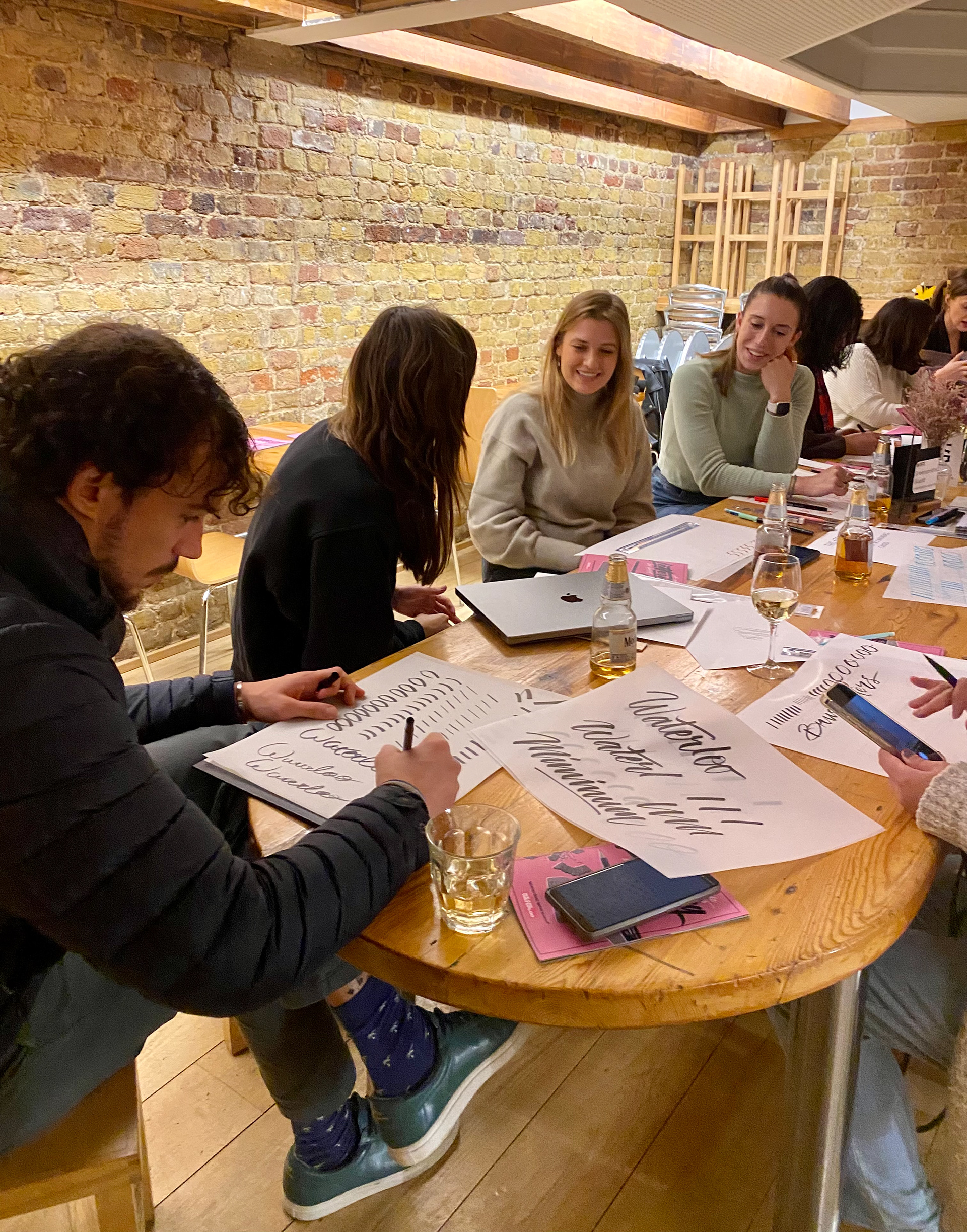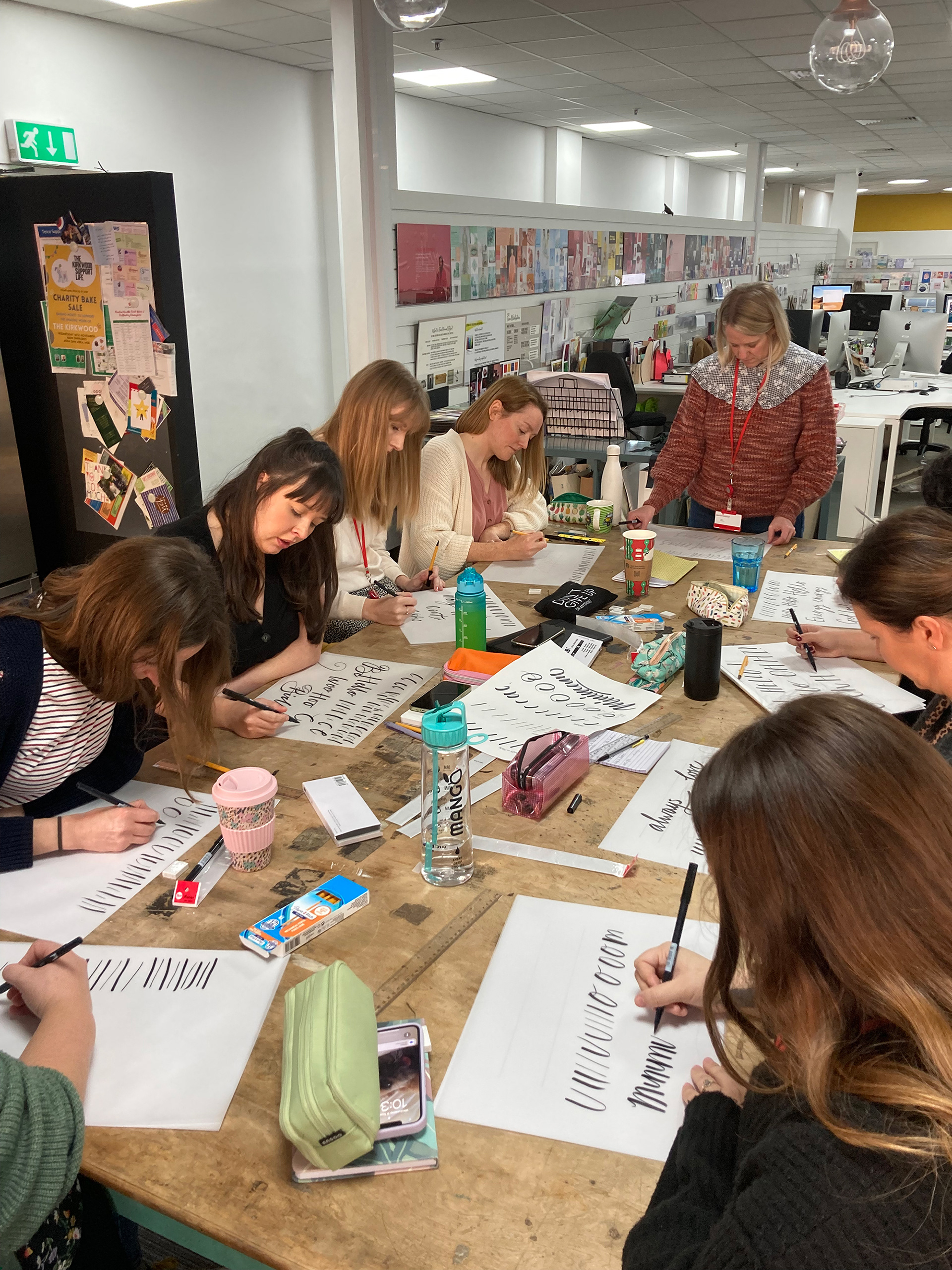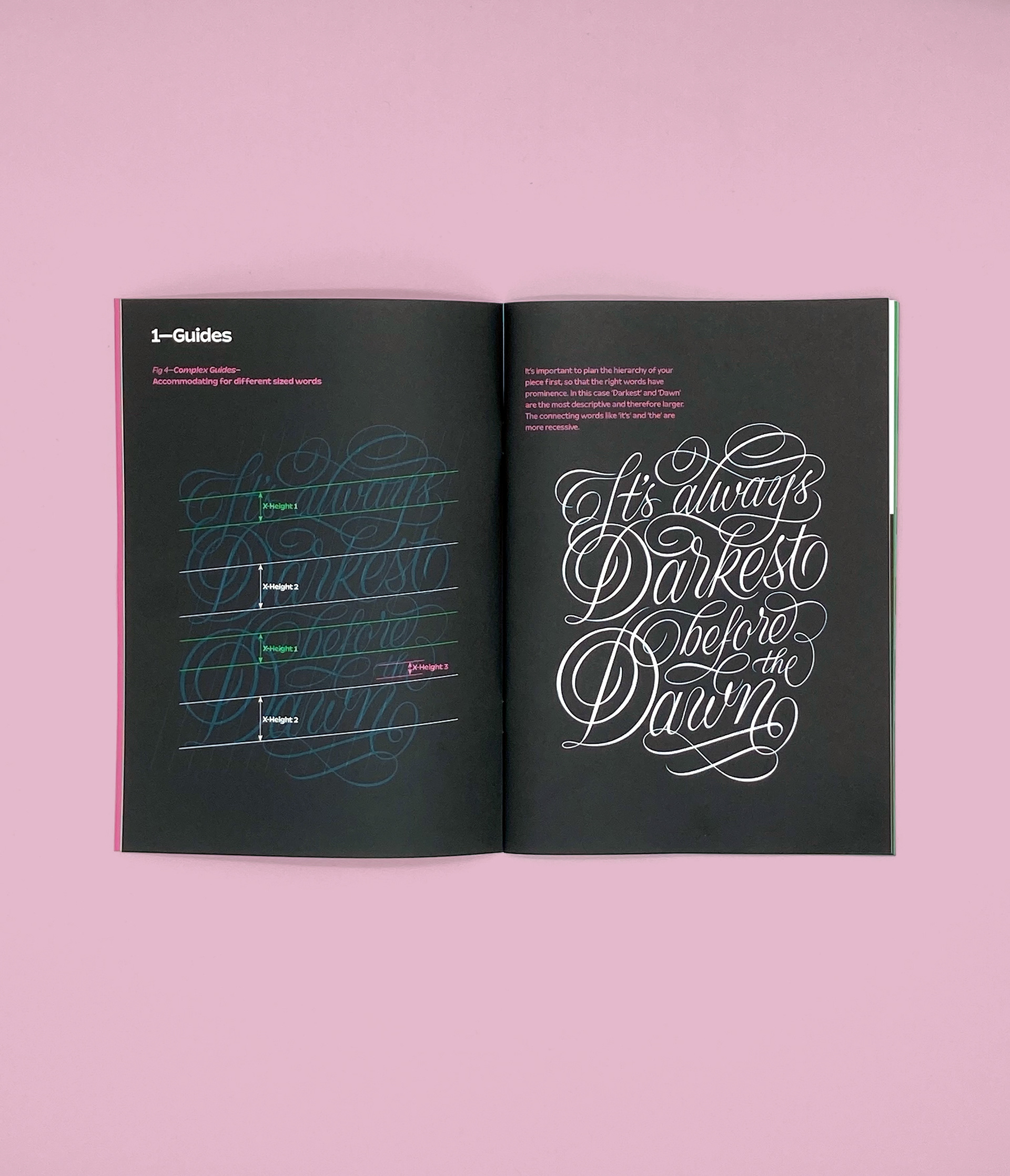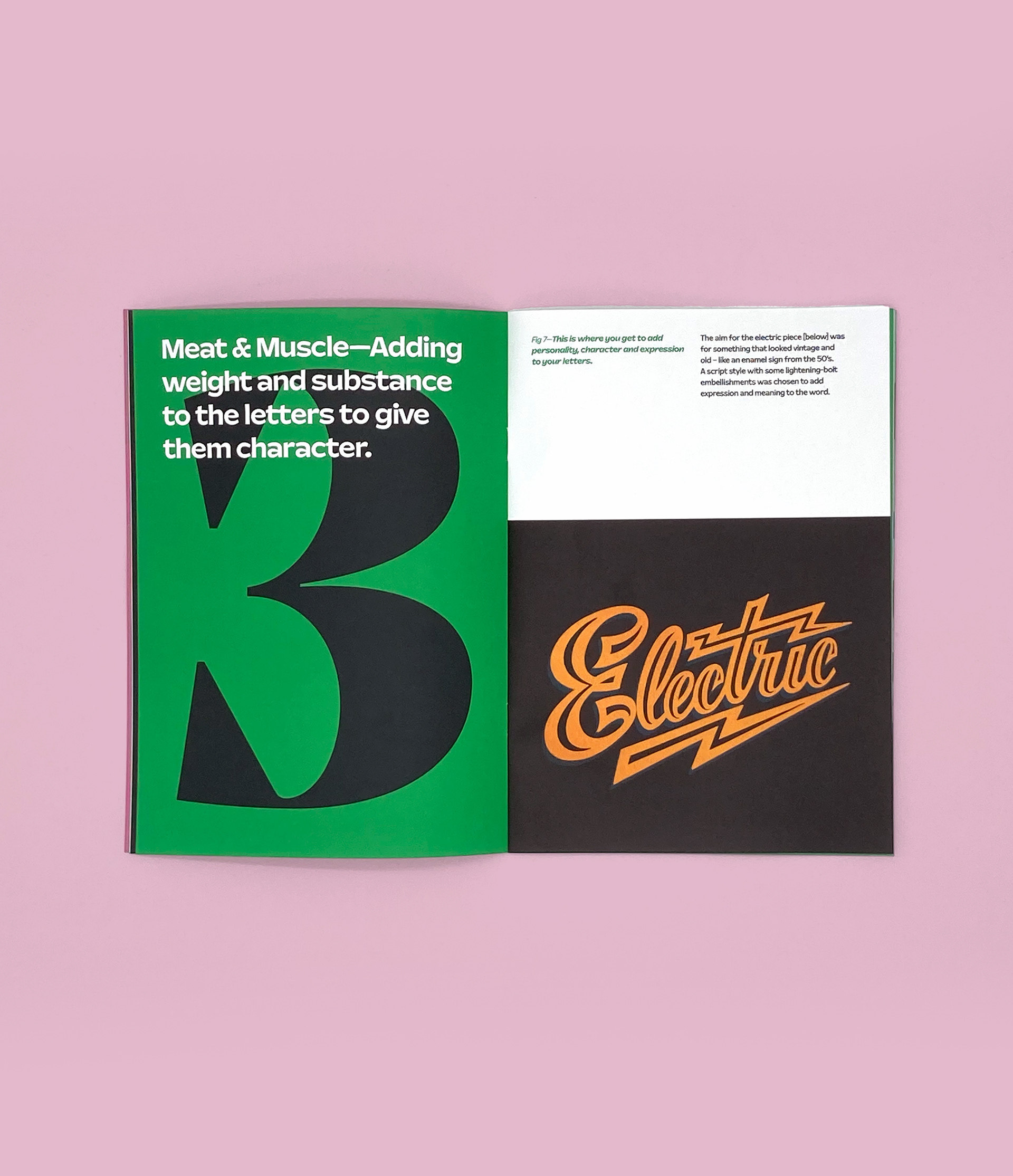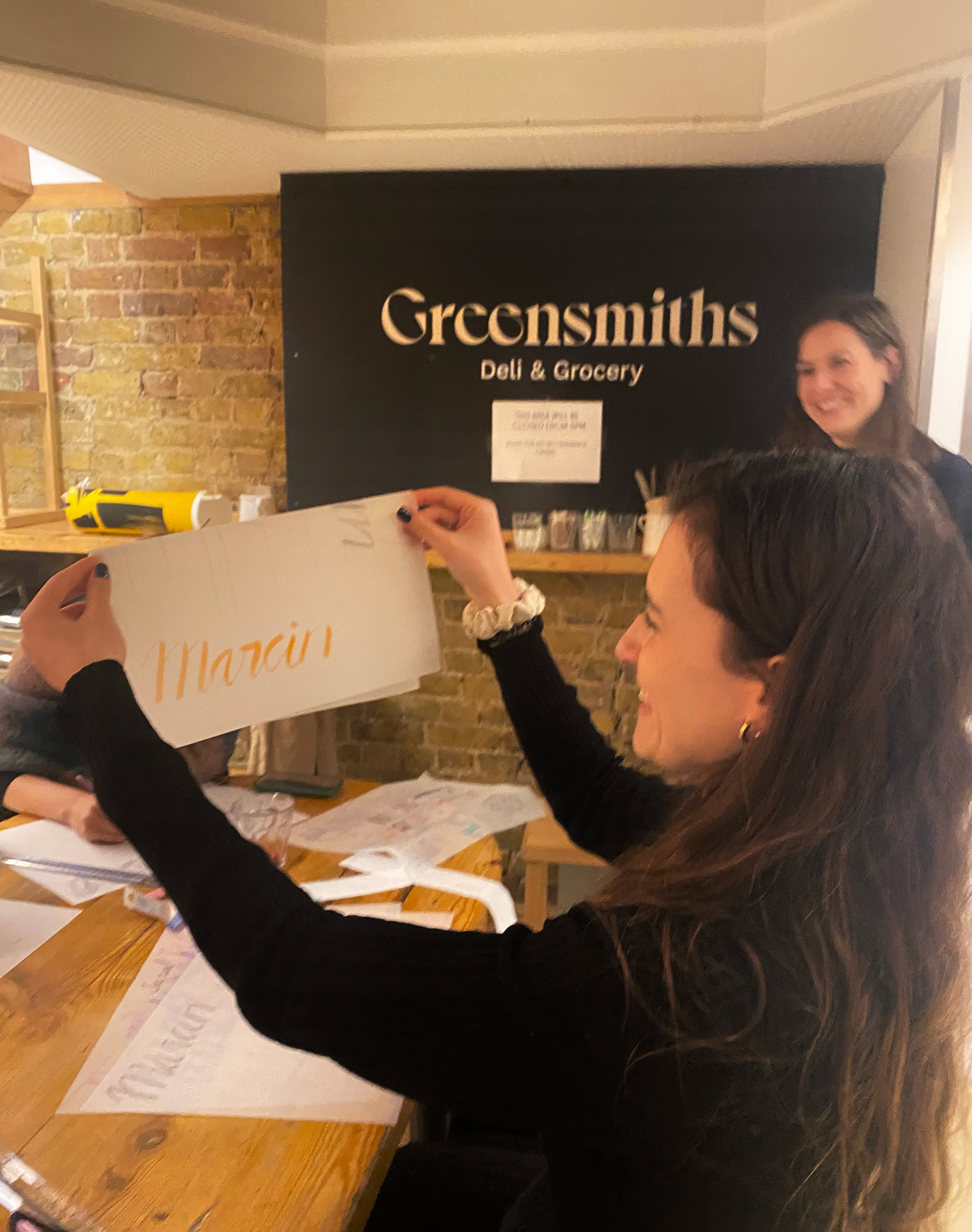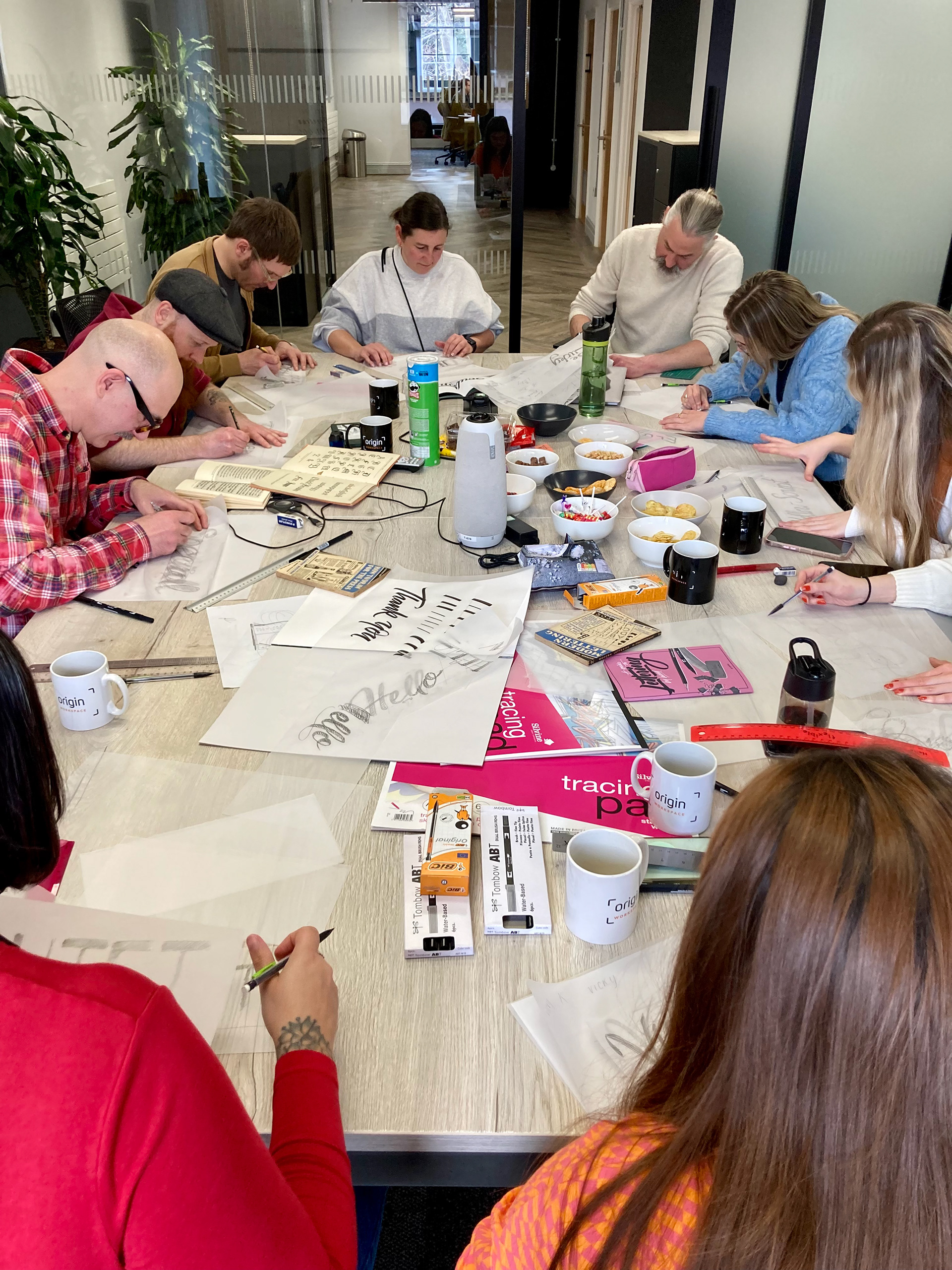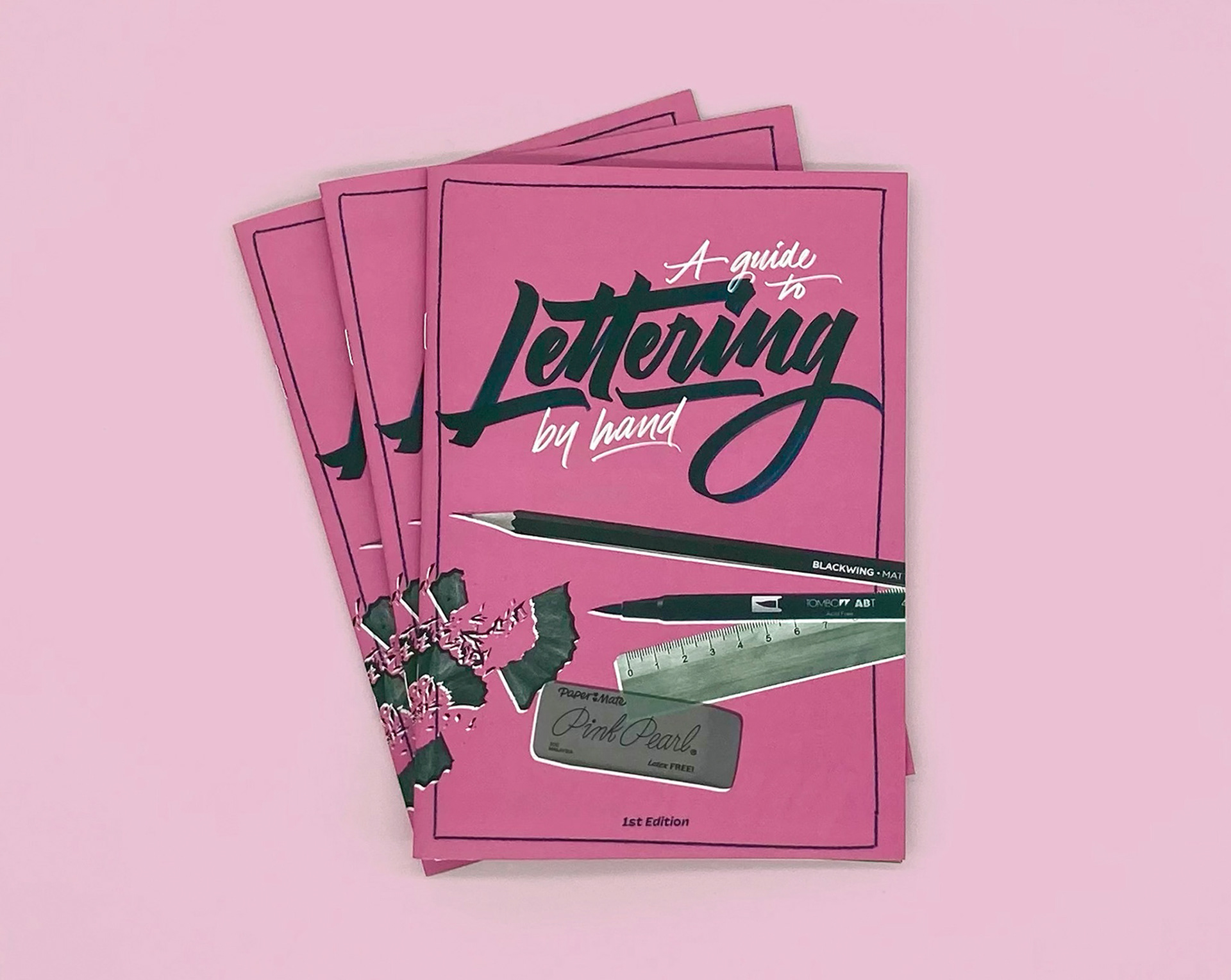
I run creative and practical workshops for businesses, design agencies and community groups. My workshops are designed to be fun, hands-on and inspiring while teaching valuable lettering skills that you can use to level up at work, as a hobby or for creative projects. Brush lettering is a mindful, creative skill that can be used for personal projects, wedding stationery, branding or simply as a relaxing hobby.
My sessions are perfect for beginners and experienced creatives alike. You’ll learn:
• How to use brush pens to create modern, expressive letterforms
• Step-by-step techniques for creating consistent, fluid lettering styles
• Tips, tricks and live demonstrations to improve your brush lettering quickly
Brush lettering is a mindful, creative skill that can be used for personal projects, wedding stationery, branding or simply as a relaxing hobby. If your business or group would benefit from a workshop focussed on just one or a few of these skills, I can flex and tailor to your needs.
In my hand lettering workshops, I teach a simple method that allows anyone to draw letters in different styles – even if you’ve never considered yourself artistic. My lettering workshops around Bristol, Stroud and London focus on creativity, confidence and craft.
You’ll leave the workshop with:
• A solid understanding of hand-drawn lettering
• Sketches you can develop further or digitise
• The confidence to explore your own lettering style
• One of my 'Guide to Lettering by Hand' books which you can take away with you and refer to for practice..
Lettering Workshops for Design Agencies and Creative Businesses
This is a package for creative agencies who want to upskill their designers in lettering. This day-long workshop will teach a mixture of brush lettering techniques, how to draw different styles of letters using one simple method and vectoring techniques which speed up workflow and create the most professional results.
The workshop is packed with live demonstrations and practical tips that attendees will put into action throughout the morning session, with my guidance. In the afternoon, we focus on refining and vectorising sketches in Adobe Illustrator, using industry-standard techniques and correct point placement specific to lettering and type design. Learning the proper methodology for vectorising type quickly raises the standard of work and efficiency within creative teams.
The workshops can also be used as a way to get people away from their desks for the day and let them try something more hands-on and analogue. It's a good way for teams to gather around a table and enjoy a non-client-related task without the demands of the usual workday. It gets people feeling inspired and thinking creatively while opening people up to a new set of skills that can be used in client projects. The sessions can be as formal or informal as you like, it can be all pen and paper and no digitising if you prefer a more analogue day – I can adapt to your requests.
Put simply – The workshops not only build new design skills but also give teams the chance to step away from client projects, collaborate creatively and return to work inspired. They'll learn:
• Brush lettering skills
• Hand-drawn lettering practice using my three step method
• Vectoring and digitising skills in Adobe Illustrator to create polished vectors
• Guidance on correct point placement and type-specific workflows
Lettering Workshops for Communities
I also run community lettering workshops across Bristol, Stroud and London. These are accessible, inclusive and designed to introduce people to lettering as a fun and mindful activity.
• No drawing experience is needed – if you can write, you can learn lettering
• All materials (brush pens, pencils, rulers and paper) are provided
• Workshops are analogue and screen-free, perfect for relaxation and creativity
Community groups often find these workshops to be a therapeutic, engaging way to connect, learn and enjoy a new hobby together. They're packed with live demos, tips and tricks and one-on-one guidance.
Each attendee gets one of my 'Guide to Lettering by Hand' workbooks which they can take away with them and refer to for practice.